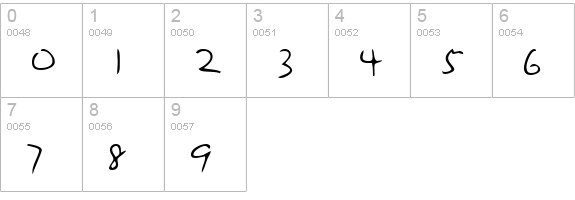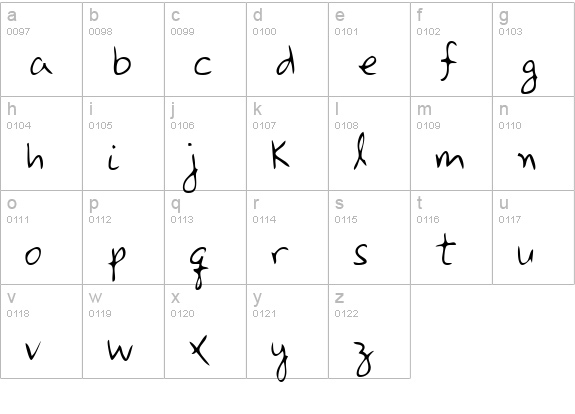
PennysHand Regular Font Details
PennysHand Regular is the standard, neutral variant in the PennysHand typeface family \xE2\x80\x94 well suited to general body text, paragraphs, and standard typographic work.
PennysHand Regular is a charming and playful font that adds a touch of whimsy to any project. With its rounded edges and smooth curves, this font exudes a friendly and approachable feel. It is perfect for creating eye-catching headlines, logos, and invitations that demand attention. This font is not only visually appealing but also incredibly versatile. Whether you're designing a children's book cover, a greeting card, or a website banner, PennysHand Regular will bring a sense of joy and creativity to your design. What makes PennysHand Regular even more appealing is that it is freely available to download at FontsMarket.com. Yes, you read that right - it's completely free! This means that you can enhance your designs without having to spend a penny. Whether you're a professional designer or a beginner, this font is a valuable resource that won't break the bank. So why wait? Head over to FontsMarket.com and start exploring the endless possibilities that PennysHand Regular offers. Download it now and let your creativity soar!